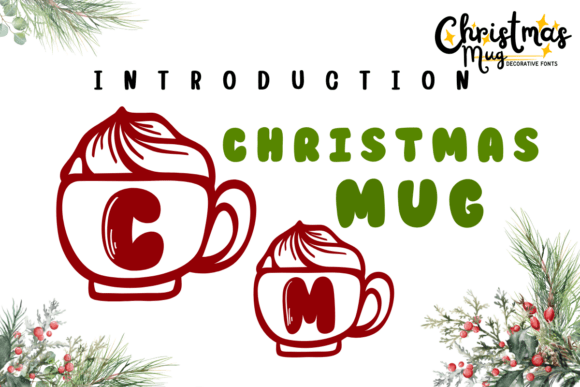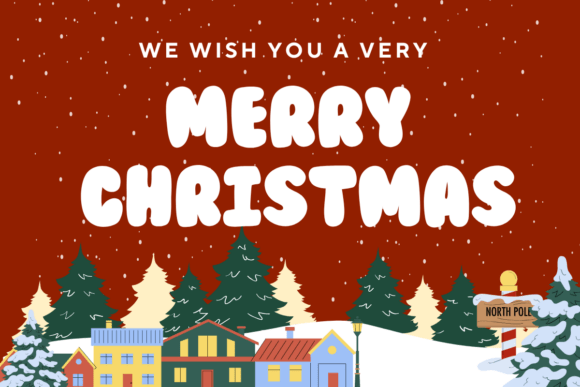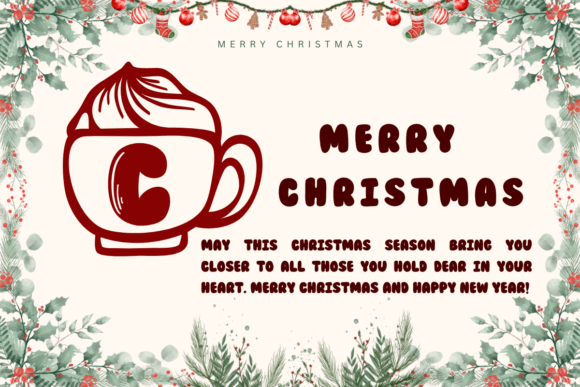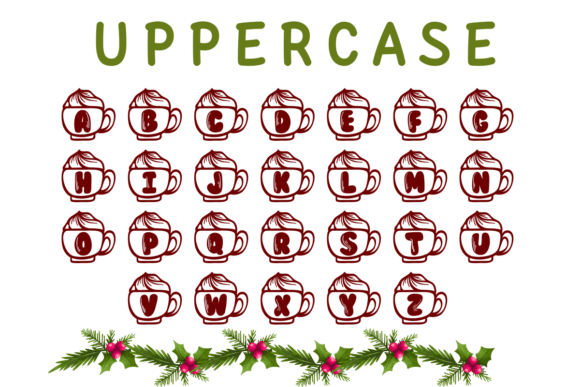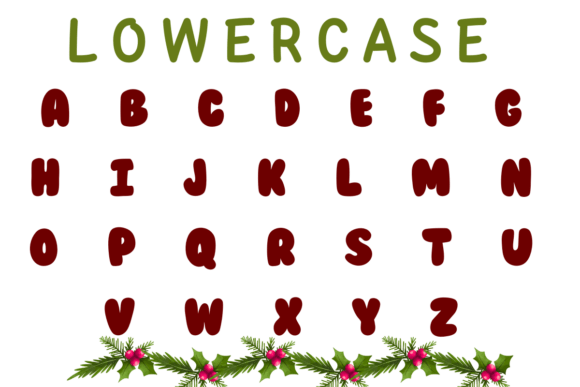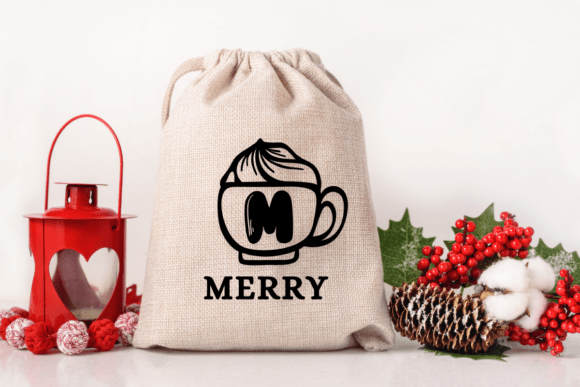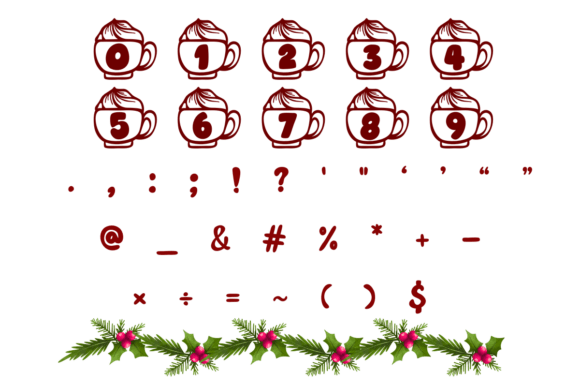
The Joy of the Christmas Mug Font: Elevating Your Holiday Designs
It’s that time of the year again – the festive season is upon us, and our creativity is sparked by the twinkling lights, cozy atmosphere, and the joy of giving. As you sit down with a warm cup of hot chocolate, surrounded by loved ones, you can’t help but feel inspired to create something special. Perhaps you’re thinking of making handmade cards or writing a heartfelt letter to a loved one. This is where the magic of the Christmas Mug Font comes in – a festive decorative font that adds a touch of whimsy and cheer to any design.
Whether you’re a seasoned designer or a DIY enthusiast, the Christmas Mug Font is a valuable addition to your creative toolkit. With its playful, handwritten style, it’s perfect for taking notes, writing a diary, or making greeting cards. But its uses don’t stop there – this versatile font can be used for a wide range of designs, from banners and social media posts to mugs, cards, and shirts. Get ready to elevate your holiday designs with the Christmas Mug Font!
Key Features of Christmas Mug Font
- Unique Hand-Drawn Design: The font features a distinctive, hand-drawn style that captures the festive spirit of Christmas.
- Character Set: Includes a comprehensive set of characters, including uppercase and lowercase letters, numbers, and punctuation marks.
Christmas Mug Font Review
I’ve had the chance to work with the Christmas Mug Font and here’s my honest take on it. Overall, it’s a decent font, but it has its limitations. Let’s dive in!
- The font is festive and fun, perfect for Christmas-themed designs and projects.
- The characters are well-designed and easy to read, even at smaller font sizes.
- The font includes a wide range of punctuation marks and symbols, making it versatile for various designs.
Limitsations ⚠️
- The font is a bit too loud and overpowering for some designs, which can be overwhelming.
- The character set is limited, and it doesn’t include some common letters or symbols, which can be a problem for more complex projects.
- The font doesn’t include any alternates or swashes, which can make it feel a bit stale for more creative designs.
The Christmas Mug Font is a good choice for simple, festive designs, but it may not be the best option for more complex or creative projects. With a bit more development, it could be a top-notch font for holiday designs.
The Christmas Mug Font is perfect for:
- Creating festive holiday designs and cards.
- Adding a touch of holiday cheer to social media graphics.
- Designing custom gift tags and labels.
Remember to have fun and get creative with the Christmas Mug Font!